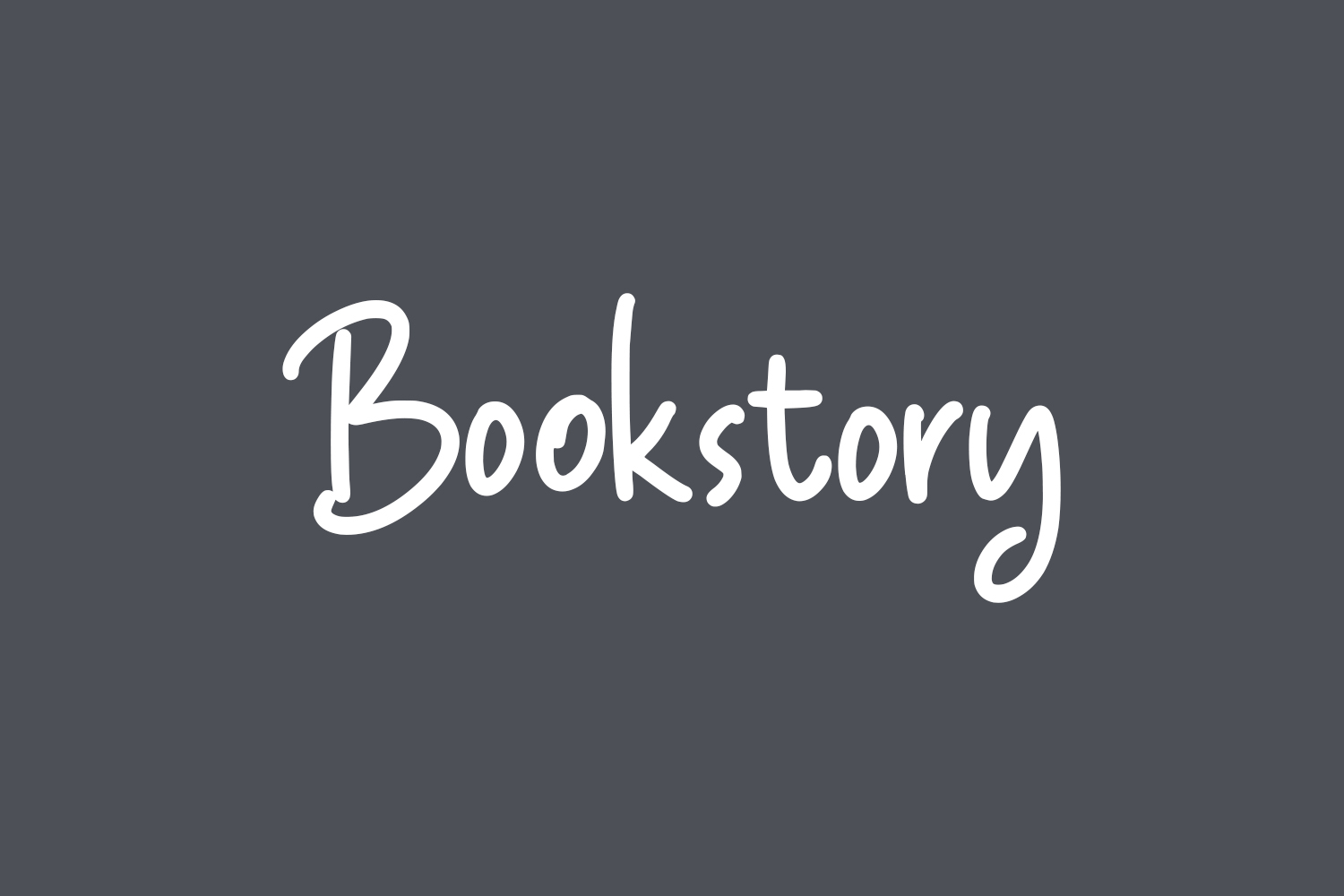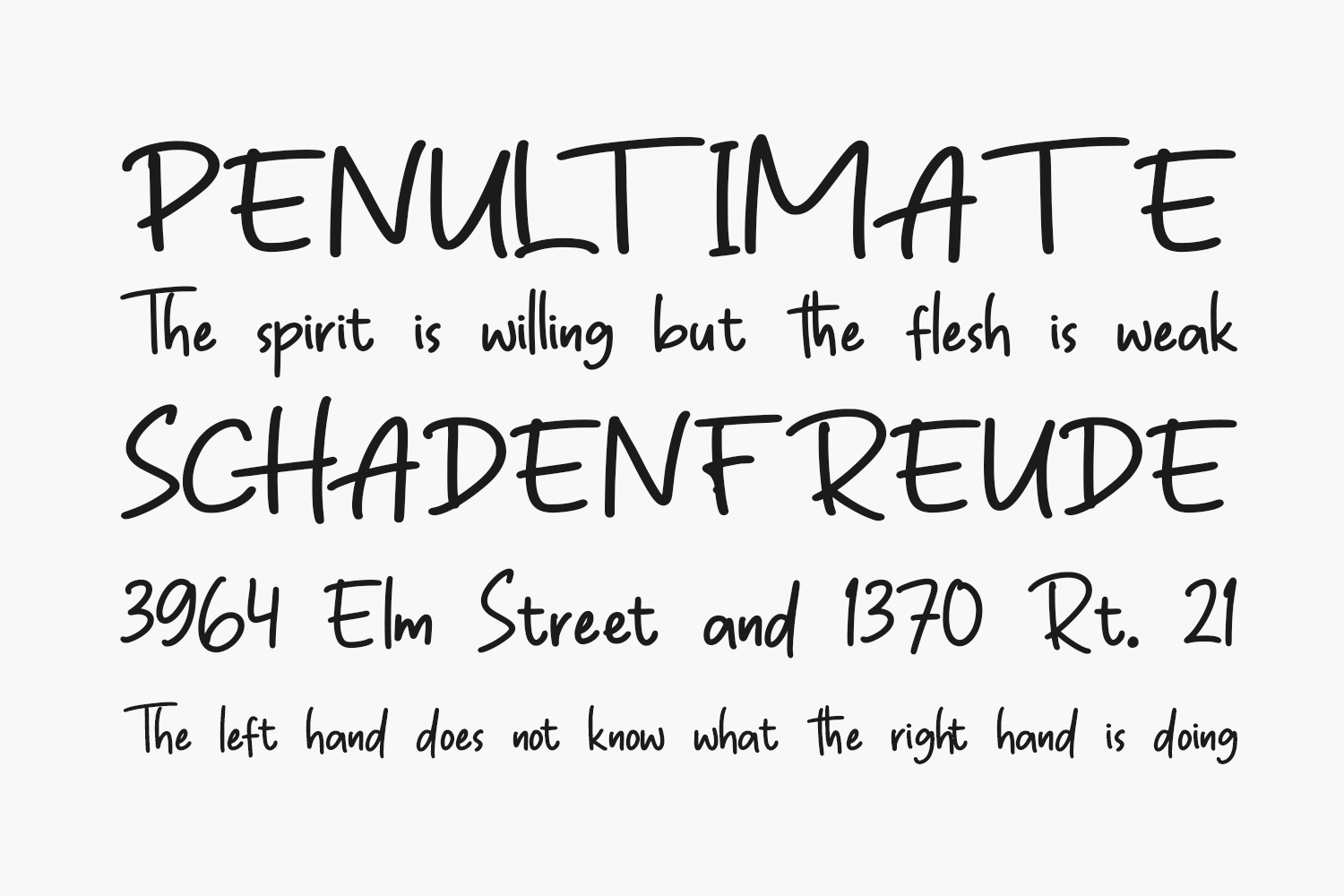
Bookstory Free Font is a delicate script font carefully created with a touch of elegance. Whether you’re looking for fonts for Instagram or calligraphy scripts for DIY projects, this font will turn any creative idea into a true piece of art. Berastagi Free Font is free for personal use only. Please purchase the full version for commercial use.